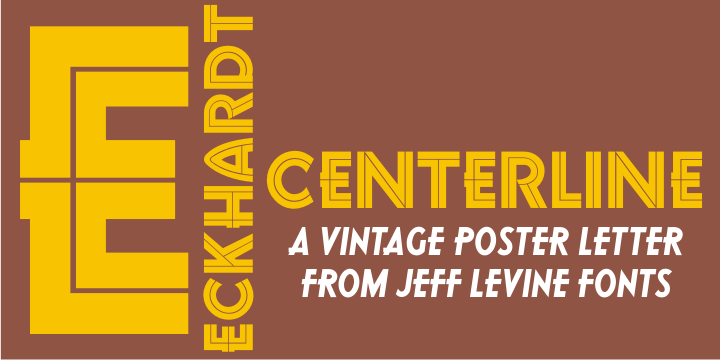
Eckhardt Centerline
Eckhardt Centerline JNL is a bold sanserif design with a thin inline and was modeled from a sample alphabet found in the 1948 Speedball® Lettering Book.
This typeface is one of a number of sign painter-oriented fonts named in honor of Jeff Levine's good friend Albert Eckhardt, Jr.(who ran Allied Signs in Miami Florida from 1959 until his passing).
Eckhardt Centerline JNL Regular by Jeff Levine Fonts